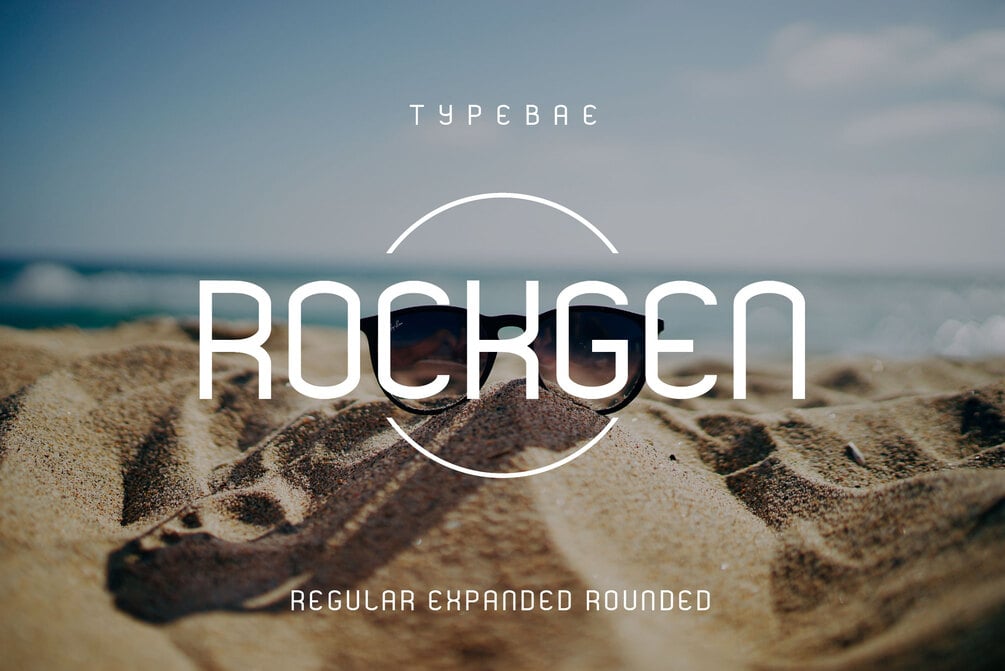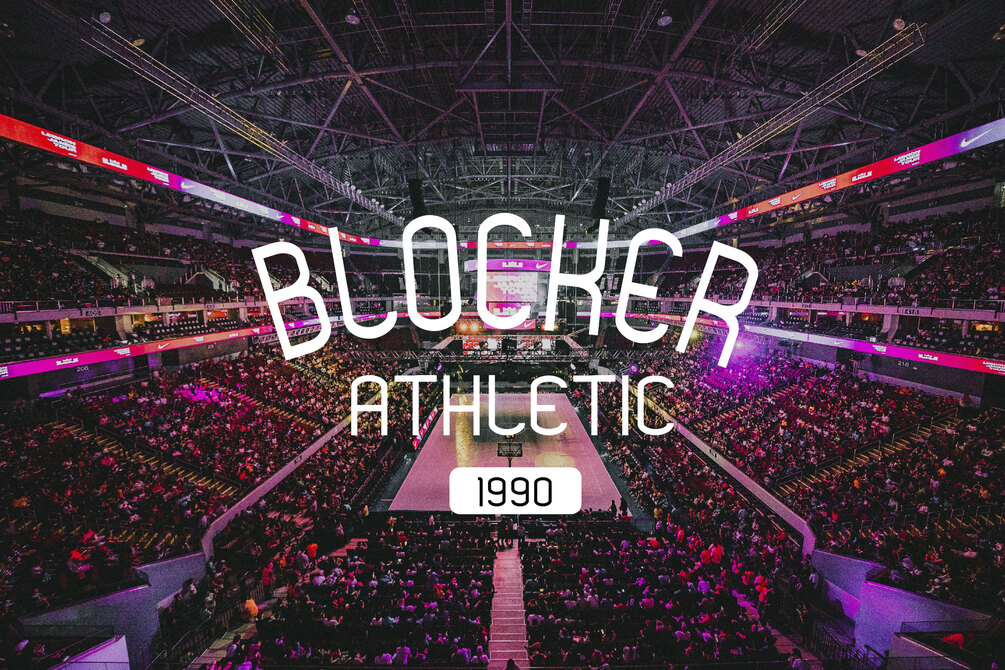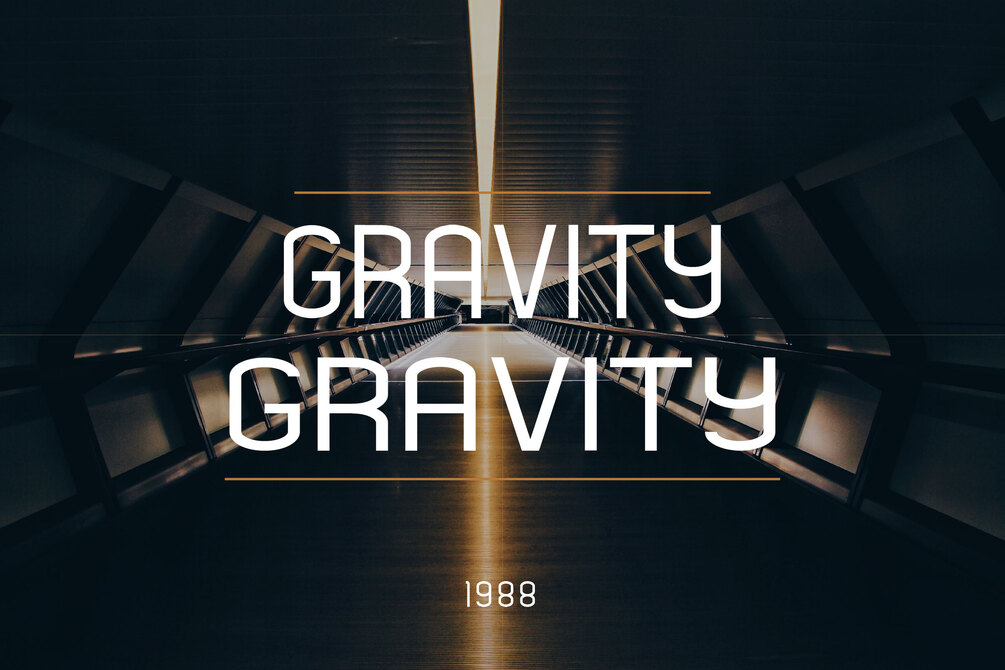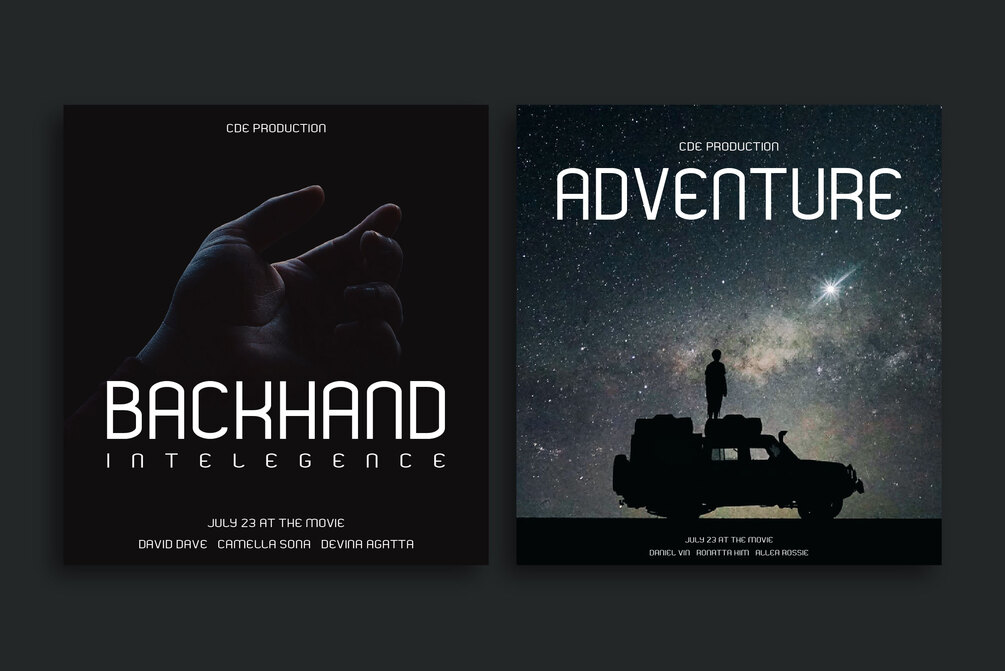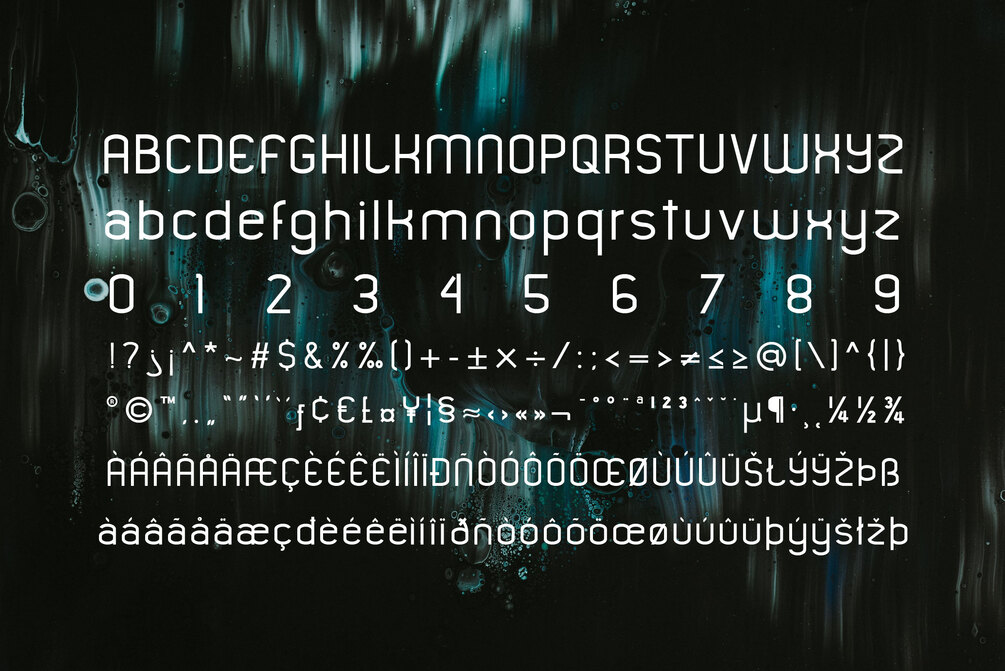
Rockgen
Rockgen is a sans serif font that has 4 cool styles. It has a strong and unique look and it is perfectly suited for branding, logos, magazines, films, websites, headlines, titles and more.
• Regular, Expanded & Rounded
• Uppercase & Lowercase
• Numbers & Punctuation
• Multilingual support